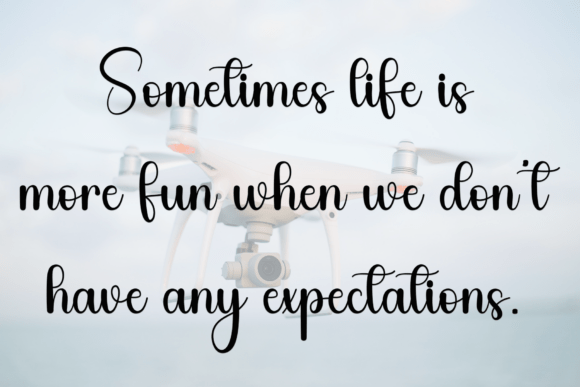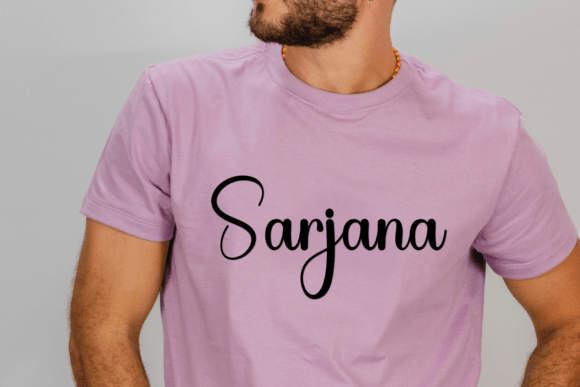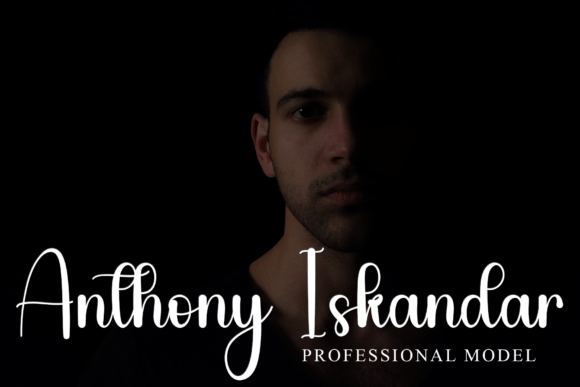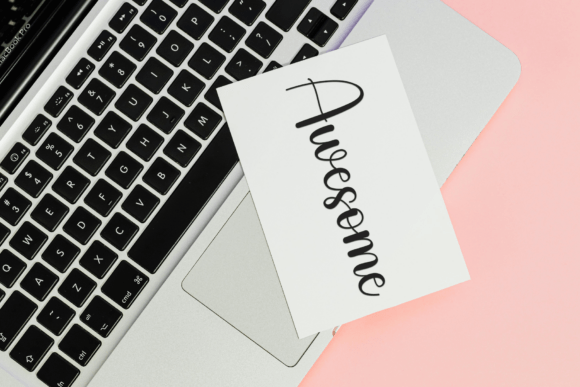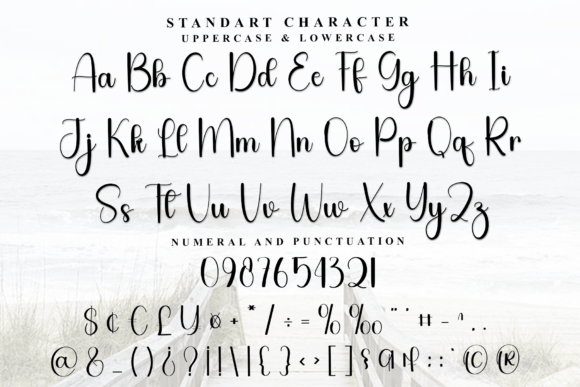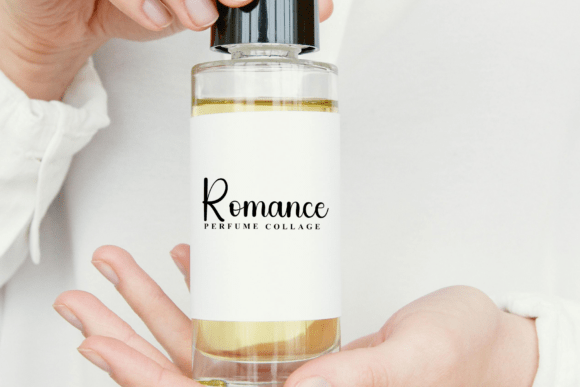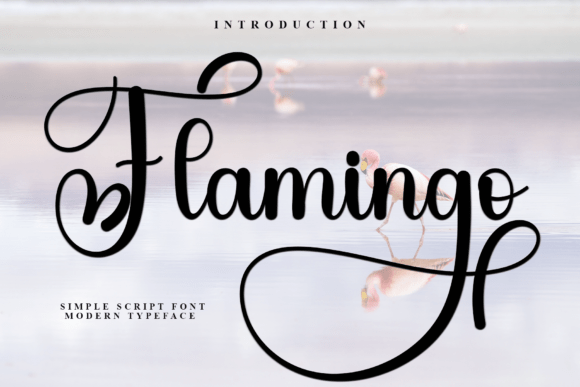
Introducing Flamingo Font: Elevate Your Creativity with Elegance
Are you a designer, crafter, or DIY enthusiast looking for a font that can add a touch of magic to your creative projects? Look no further than Flamingo Font, a beautiful script font designed to bring elegance and sophistication to your work. In this article, we’ll explore the features and benefits of Flamingo Font, and show you how it can help you turn your ideas into stunning works of art.
The Story Behind Flamingo Font
Flamingo Font is a carefully crafted script font that is designed to evoke a sense of elegance and refinement. With its flowing lines and intricate details, this font is perfect for anyone looking to add a touch of sophistication to their creative projects. Whether you’re working on a DIY project, creating social media graphics, or designing a brand identity, Flamingo Font is the perfect choice.
What Makes Flamingo Font Special?
So, what sets Flamingo Font apart from other fonts on the market? Here are just a few features that make it a standout:
- Elegant Script Design: Flamingo Font features a beautiful script design that is both elegant and refined. With its flowing lines and intricate details, this font is perfect for creating sophisticated and eye-catching graphics.
- Magical Touch: Flamingo Font has a touch of magic to it, making it perfect for adding a whimsical touch to your creative projects.
- Versatile: Whether you’re working on a DIY project, creating social media graphics, or designing a brand identity, Flamingo Font is versatile enough to fit any creative need.
Perfect for Instagram and Social Media Graphics
With the rise of social media, creating eye-catching graphics has become more important than ever. Flamingo Font is the perfect choice for Instagram and social media graphics, as it adds a touch of elegance and sophistication to any design. Whether you’re creating graphics for your personal feed or for a brand, Flamingo Font is sure to make your designs stand out.
Calligraphy Scripts for DIY Projects
If you’re a crafter or DIY enthusiast, you know how important it is to have the right tools and resources to bring your creative ideas to life. Flamingo Font is perfect for DIY projects, as it provides a beautiful and elegant script font that can be used for a variety of creative projects, such as:
- Handmade Cards: Add a touch of elegance to your handmade cards with Flamingo Font.
- DIY Signage: Create beautiful and eye-catching signage for your home or business with Flamingo Font.
- Crafting Projects: Use Flamingo Font to add a touch of sophistication to your crafting projects, such as scrapbooking, journaling, and more.
Flamingo Font is a magical script font that is carefully crafted with a touch of elegance. Whether you’re a designer, crafter, or DIY enthusiast, this font is perfect for adding a touch of sophistication to your creative projects. With its elegant script design, magical touch, and versatility, Flamingo Font is the perfect choice for anyone looking to elevate their creativity and turn their ideas into stunning works of art.